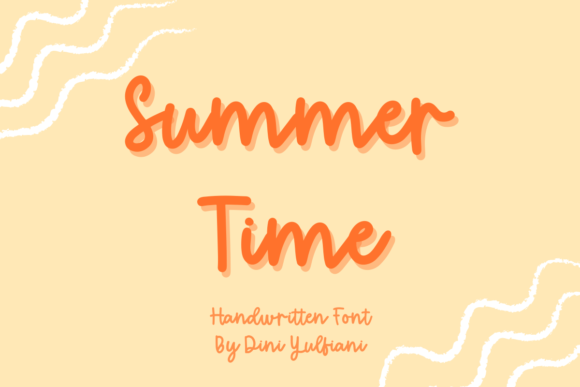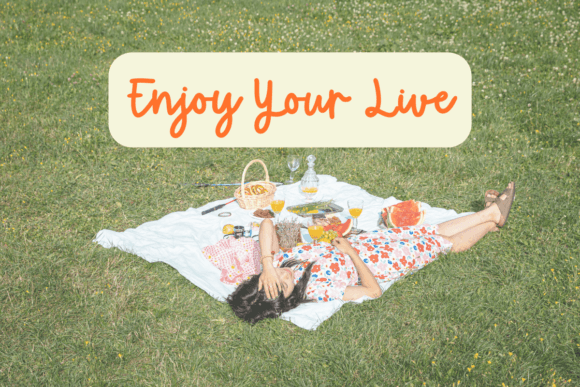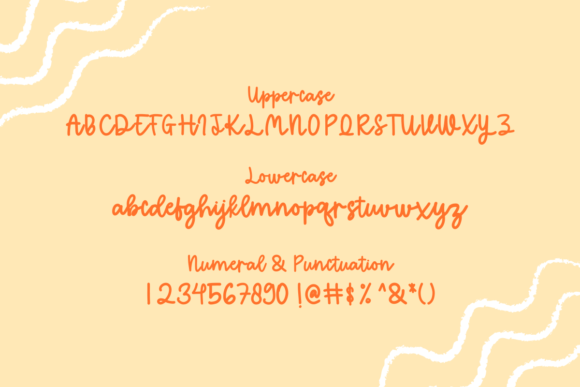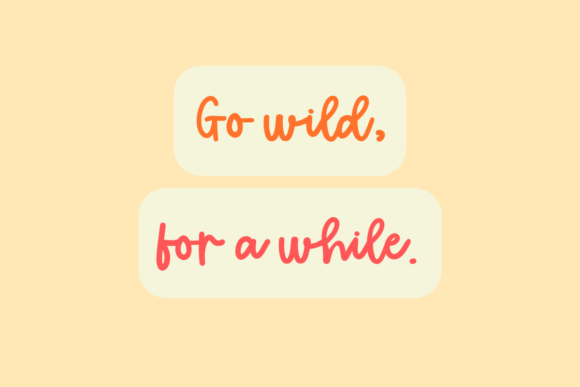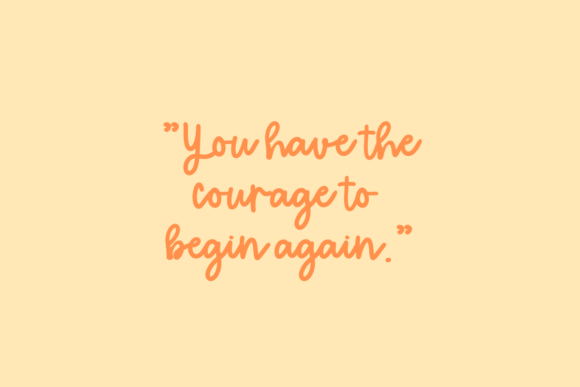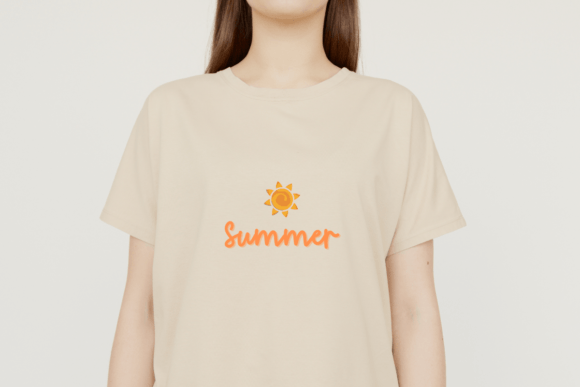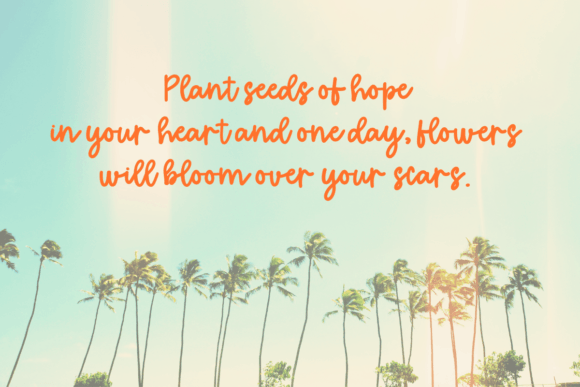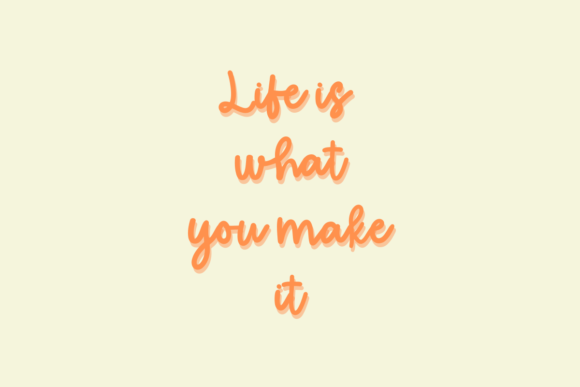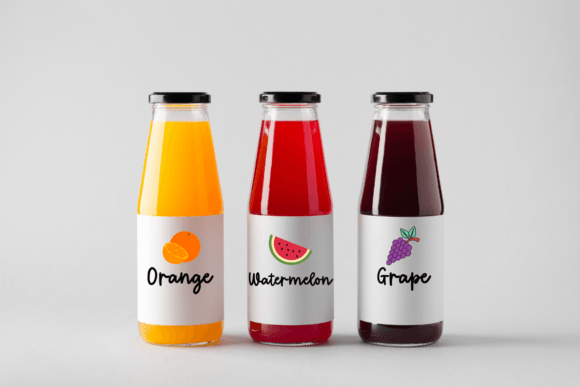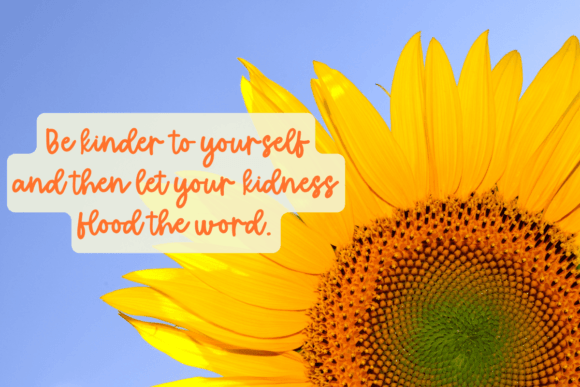
Summer Time Font
About Summer Time Font
“Summer Time” is not just a font; it’s a handwritten typeface crafted for the essence of summer vibes and creativity. With its relaxed and breezy design, this font is perfect for a wide array of applications, making it an ideal choice for your design needs.
Imagine “Summer Time” adding a carefree touch to your logos, creating a laid-back atmosphere in branding, and infusing a playful spirit into titles. Its handwritten style brings a sense of warmth and authenticity to social media posts, while its versatility extends to advertisements, product packaging, product designs, labels, photography, special events, web designs, and more.
Envision “Summer Time” becoming a go-to font in your design toolkit, contributing its handwritten charm to capture the essence of summer in your projects. The relaxed and breezy nature of this font makes it suitable for a variety of creative endeavors.
For projects that demand a font with a summer-inspired touch and versatile appeal, “Summer Time” stands out as a typeface that delivers just that. Its casual and playful design makes it a great fit for a wide range of applications.
In any context that requires a handwritten font that radiates the carefree spirit of summer, “Summer Time” is the typeface that adds a touch of relaxed charm. Let it be the key element that transforms your designs, making them more vibrant and visually appealing.
Whether you’re working on digital or print designs, “Summer Time” is a font that brings a sense of laid-back creativity. Let it be the font that adds a summer-inspired flair to your logos, branding, titles, and various other design projects.
Let “Summer Time” be the font that infuses your designs with the carefree vibes of summer, turning them into visually striking and playful expressions. Embrace its relaxed nature, and watch it bring a new level of creativity to your summer-inspired creative endeavors.